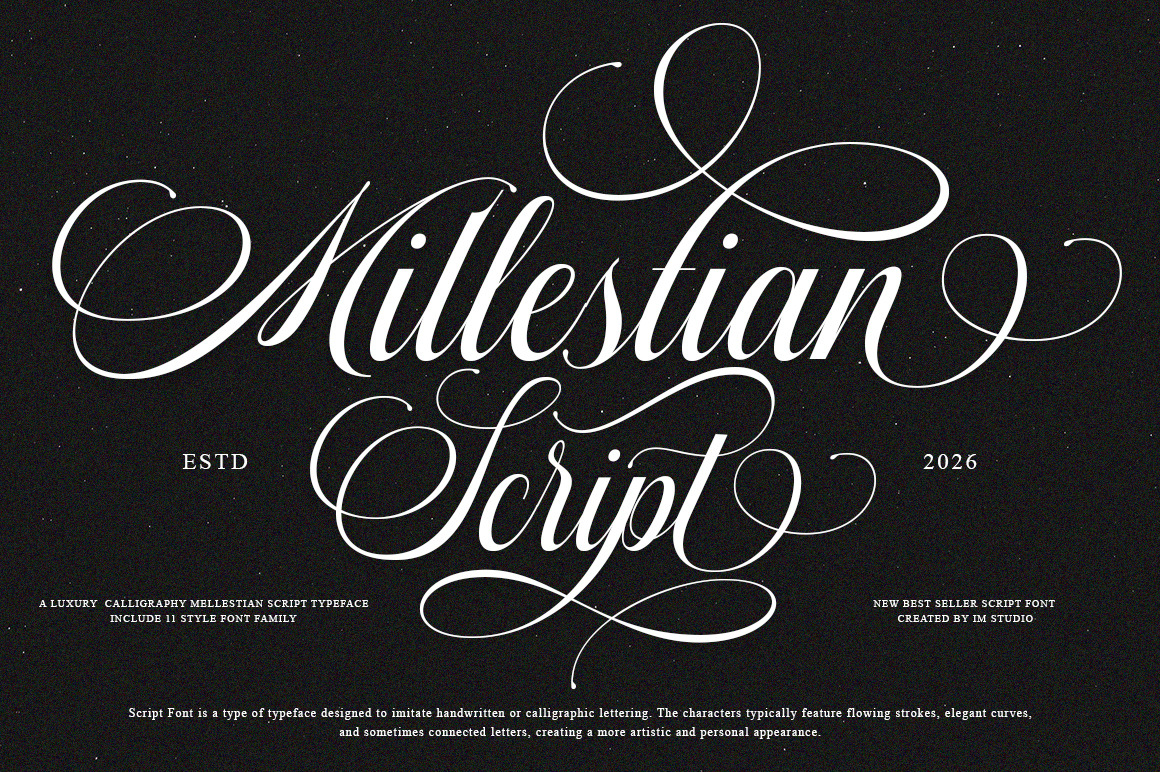
Millestian Script | 11 Font Style
Millestian Script | 11 Font Styles – Elegant Calligraphy Script Font
Millestian Script is a luxurious and elegant calligraphy script font inspired by the timeless beauty of classic copperplate lettering. Designed with graceful curves and smooth flowing strokes, this modern script font delivers a perfect balance between traditional calligraphy and contemporary elegance.
This premium typeface family includes 11 beautiful font styles, making Millestian a versatile choice for a wide range of creative projects. Whether you are designing for luxury branding, wedding invitations, feminine logos, fashion editorials, or beauty product packaging, Millestian adds a refined and sophisticated touch to your typography.
The font features smooth connections, stylish alternates, and elegant letterforms that help you create stunning lettering compositions effortlessly. Its clean readability and balanced proportions make it suitable for both display typography and decorative text.
Millestian Script works beautifully for many design purposes, including:
• Wedding invitations & wedding stationery • Luxury logos & feminine branding • Fashion and beauty typography • Social media graphics & Instagram posts • Greeting cards & quotes • Magazine headlines & editorials • Product packaging & labels • Book covers and creative layouts
Bring elegance, romance, and timeless beauty into your typography with Millestian Script — a modern calligraphy font designed for stylish and sophisticated designs.